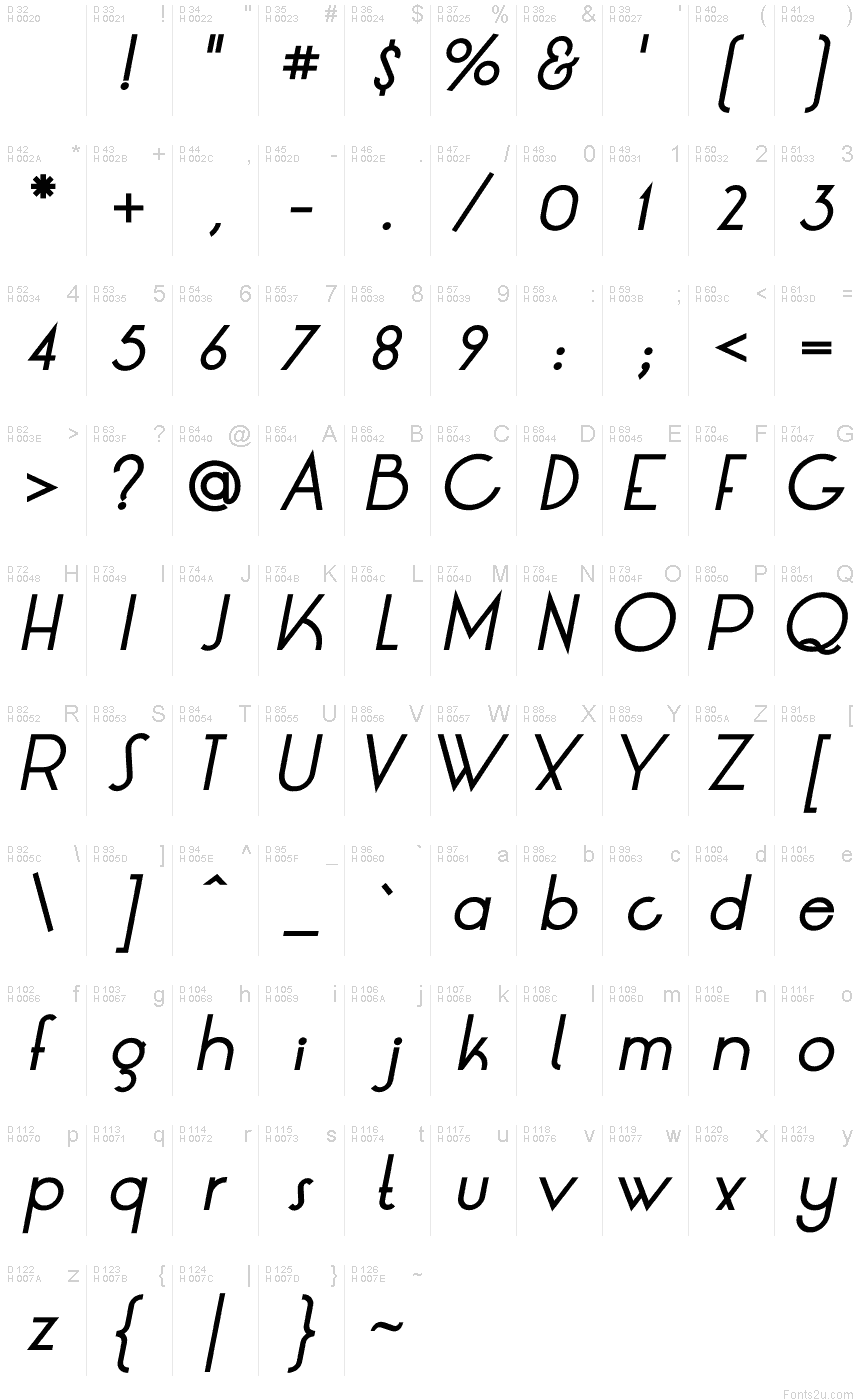
LT Oksana Medium Bold Italic by Lauren Thompson of Nymphont is a free italic geometric display sans with steeply slanted strokes and crisp construction. Its nearly circular curves meet sharp diagonals, and changing stroke widths give the lettering strong forward motion despite its controlled, engineered construction.
Fashion branding makes especially good use of this mix of precise curves and unusual angles, with related scope in cosmetics packaging, editorial covers, and music posters. It is most convincing as a sharply modern wordmark.
Original geometric design by Lauren Thompson, of Nymphont first created in 2008. The "deco" midlines and non unconventional dotted letter positions as well as the almost vertical slant of the 's' give this font what has been described as a "retro" theme and add to the uniqueness of the typeface.